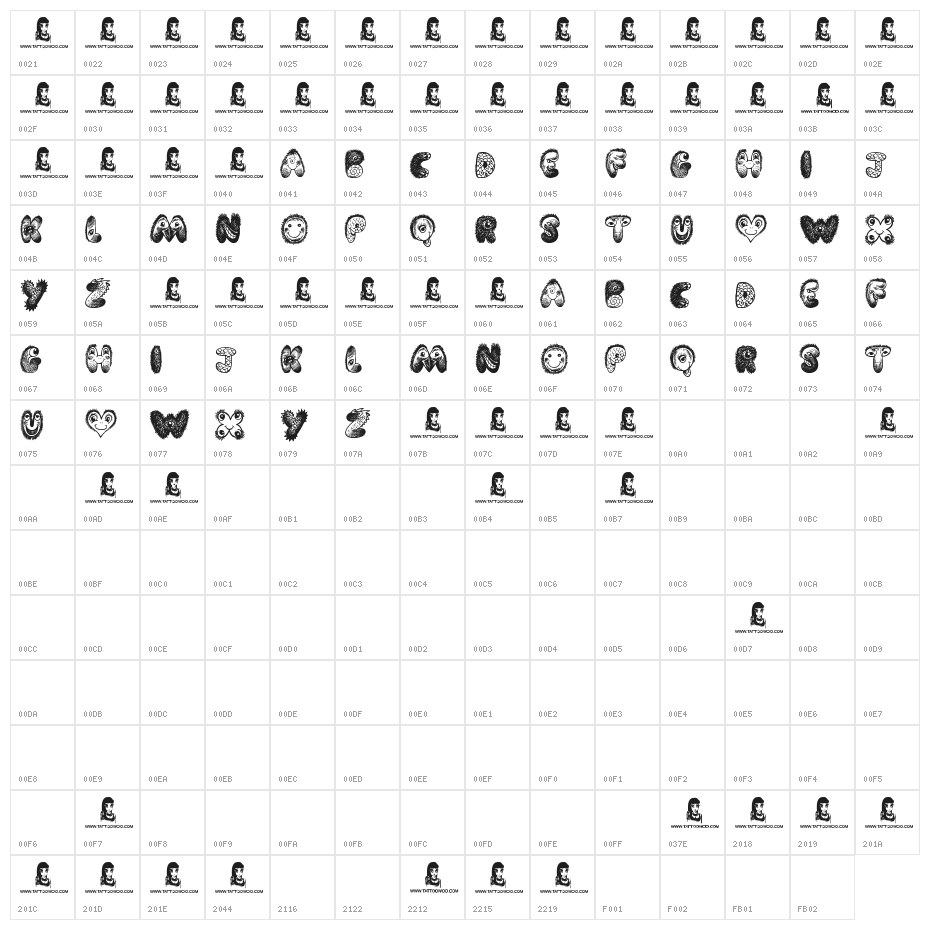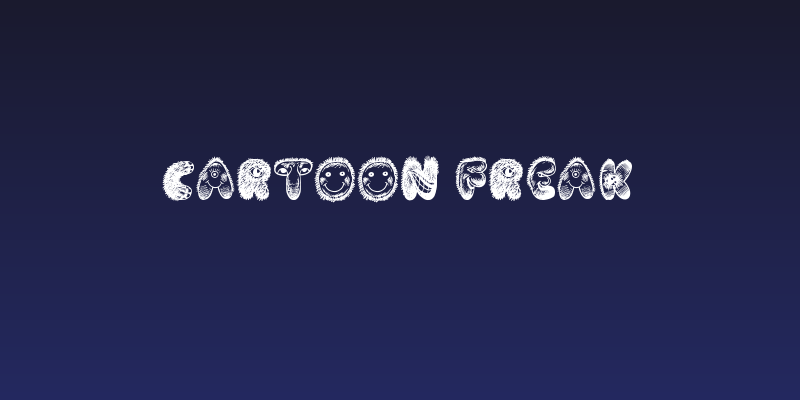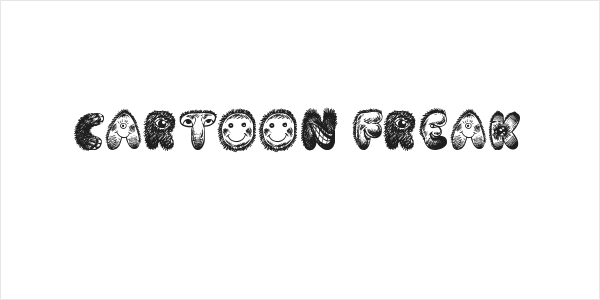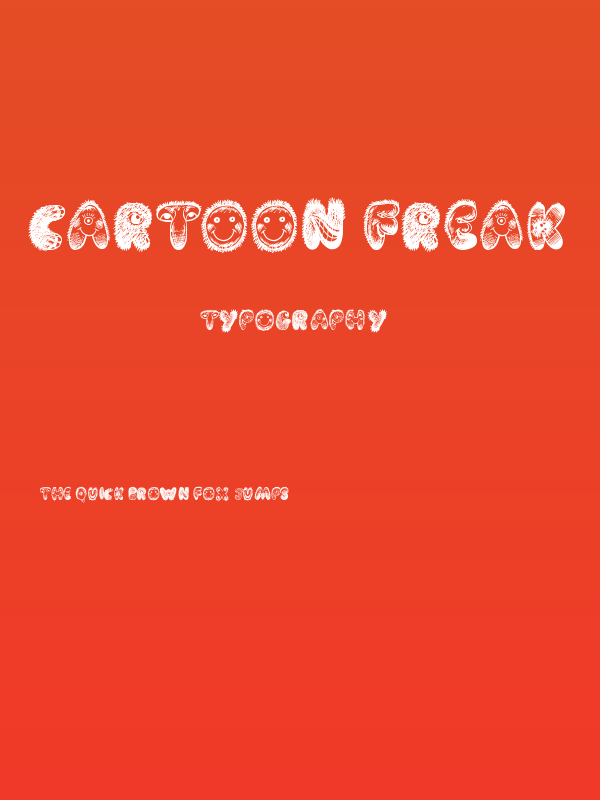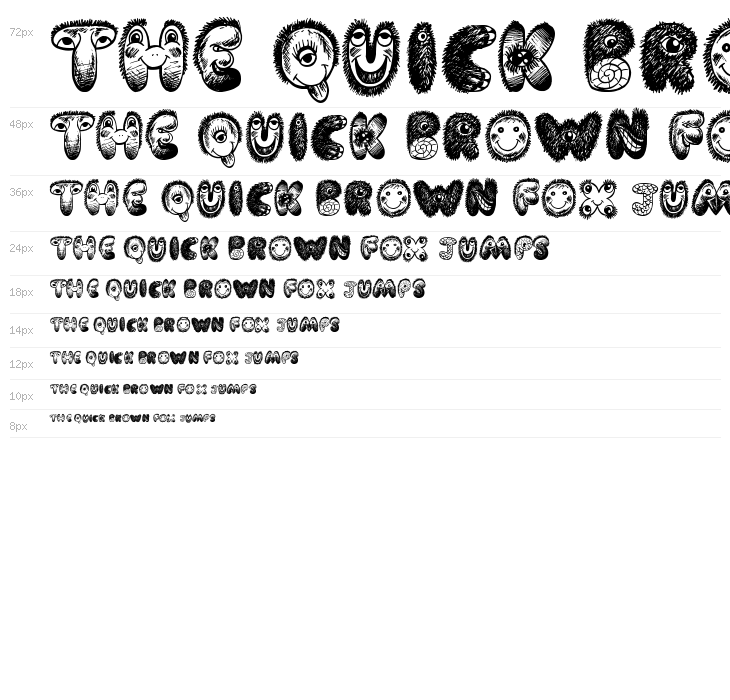
Cartoon Freak Font
Cartoon Freak Description
This playful and whimsical font features a variety of cartoonish elements, with each letter uniquely designed to incorporate fun and quirky details. The characters are filled with textures and patterns, such as scales, fur, and dots, giving them a lively and dynamic appearance. The font is highly decorative, with each letter standing out due to its distinct personality and artistic flair. The overall design is bold and eye-catching, perfect for projects that require a touch of humor and creativity.
| Proposed Projects | Ideal for children's books, comic strips, playful branding, and party invitations. |